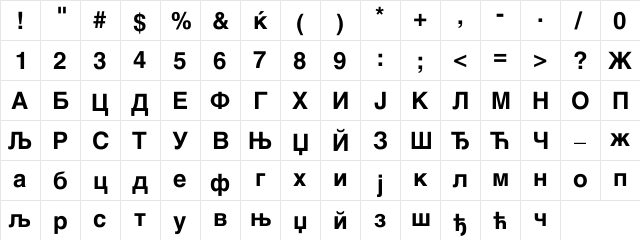
CSwiss Bold Regular
Design Context for CSwiss Bold Typeface
CSwiss Bold offers clean, dependable letterforms without strong stylistic allegiance, making it a practical choice for designers who need flexibility. Its bold stroke weight gives it real presence on the page.
Pro Tip: Pair CSwiss Bold with a font of contrasting weight or personality to build a more expressive typographic hierarchy.